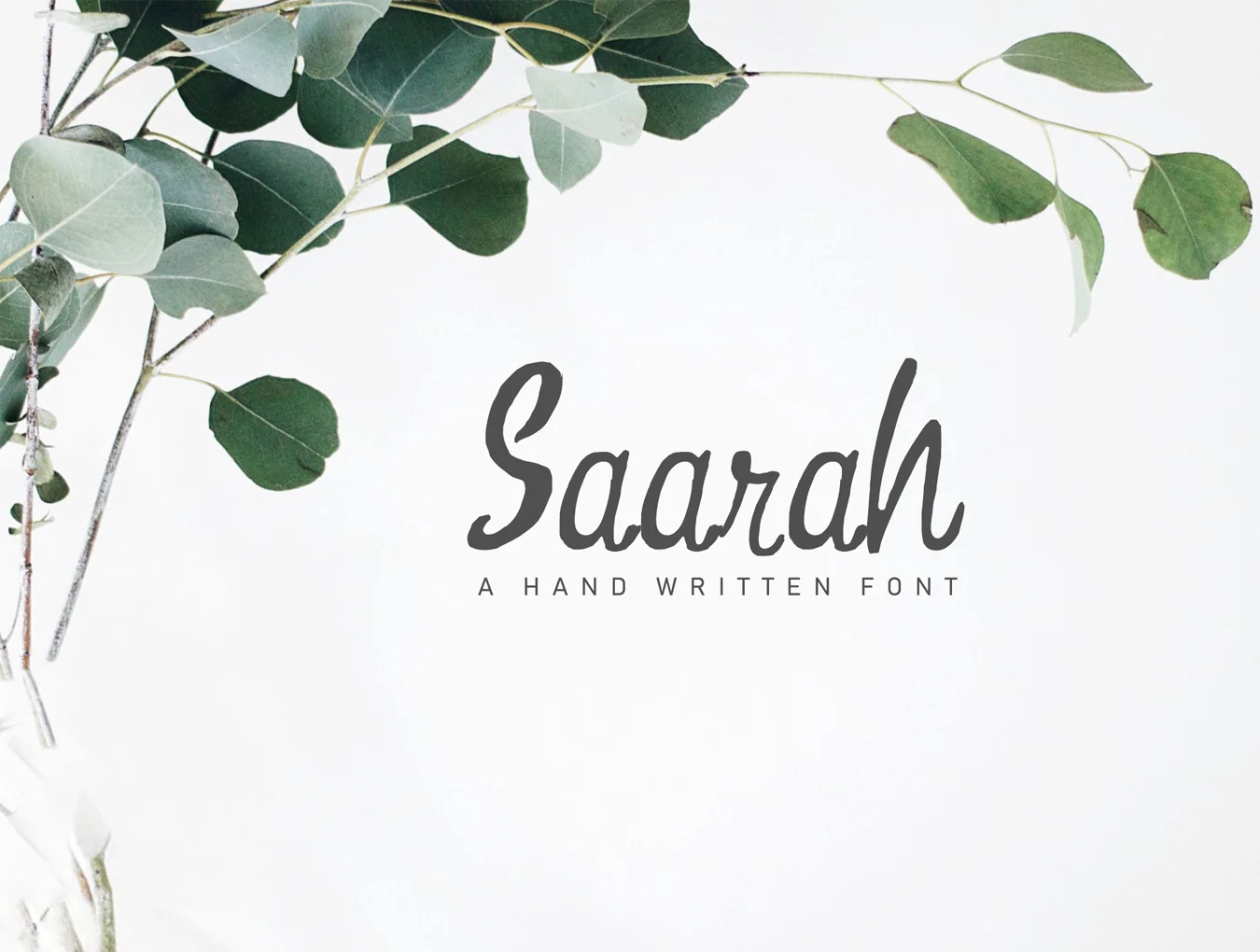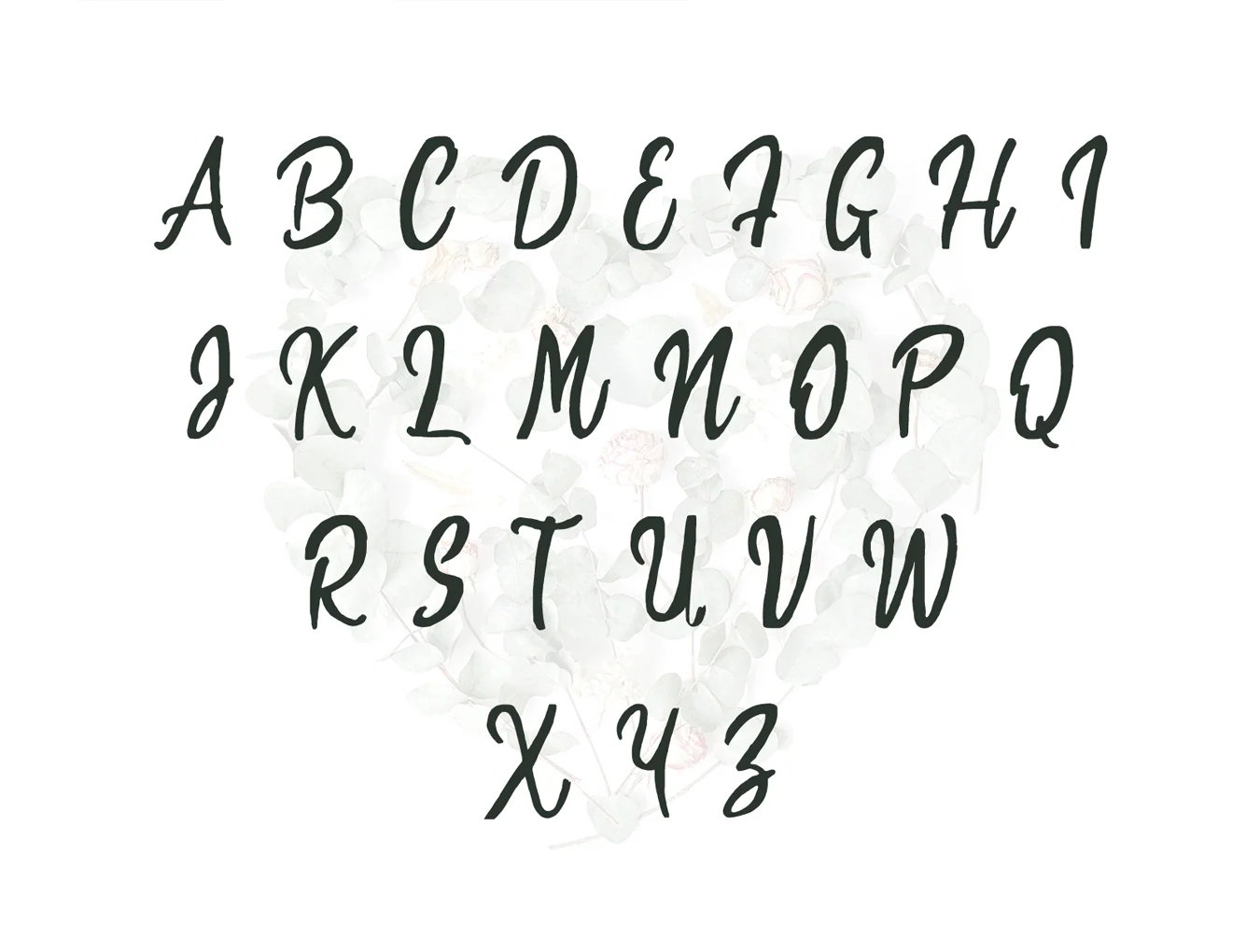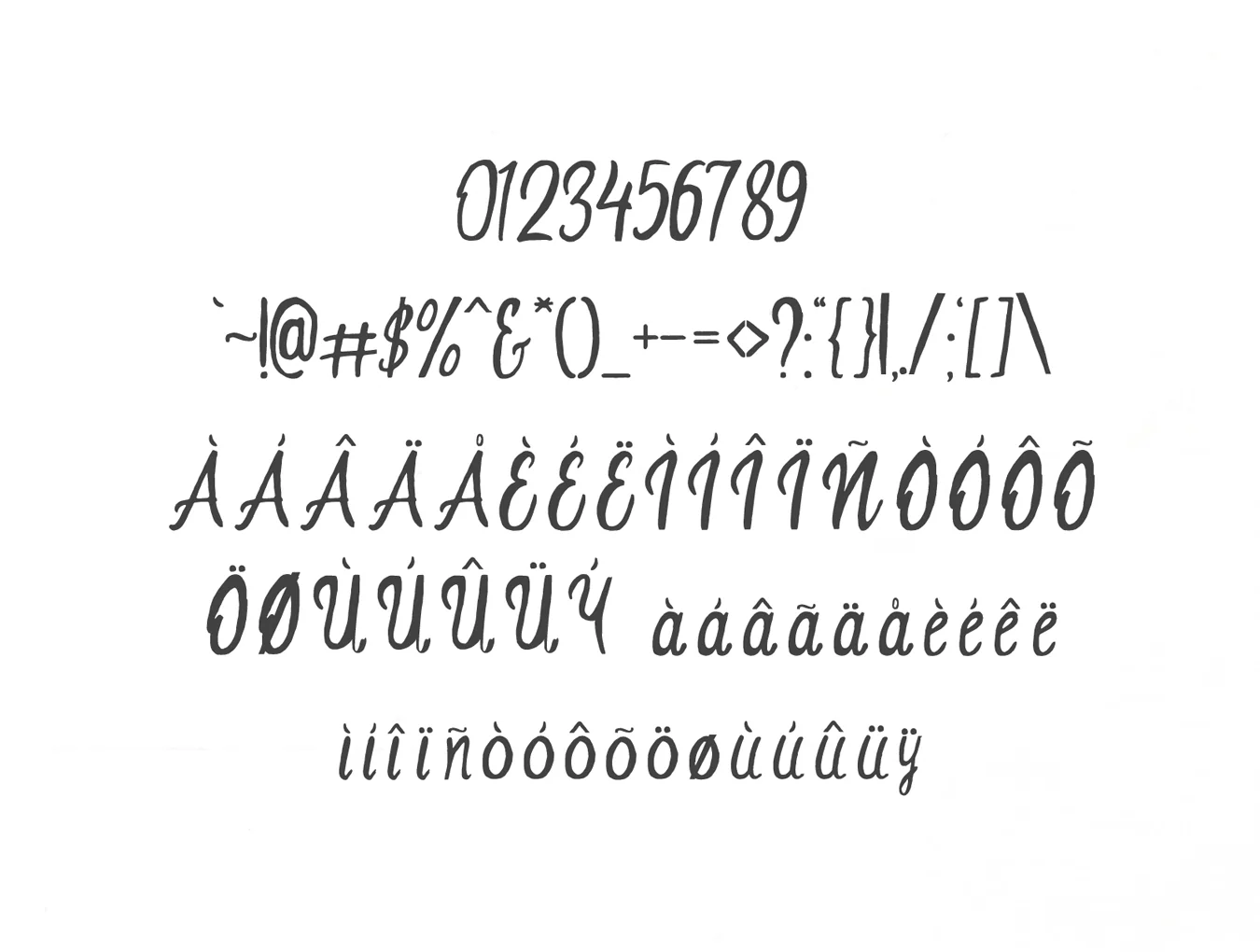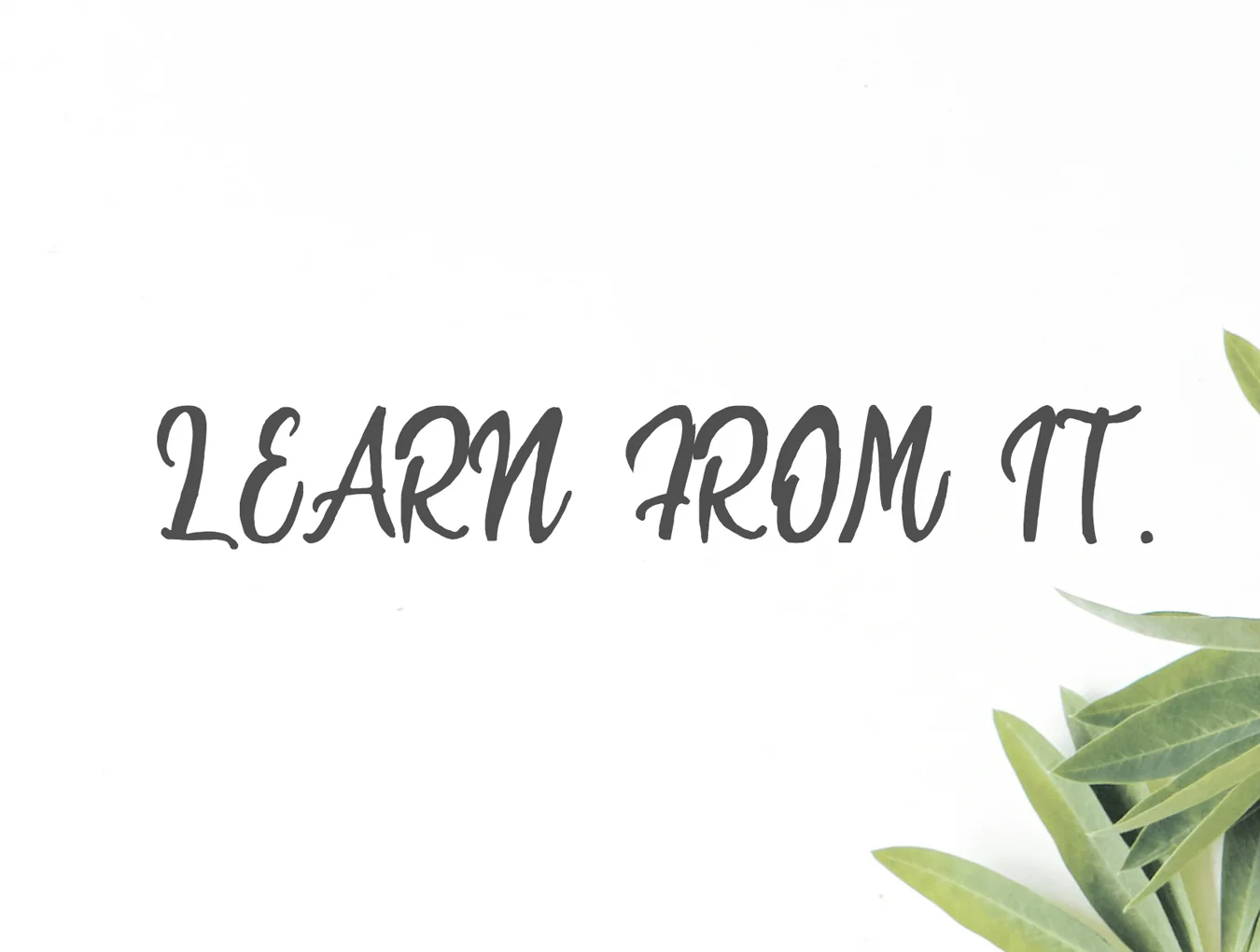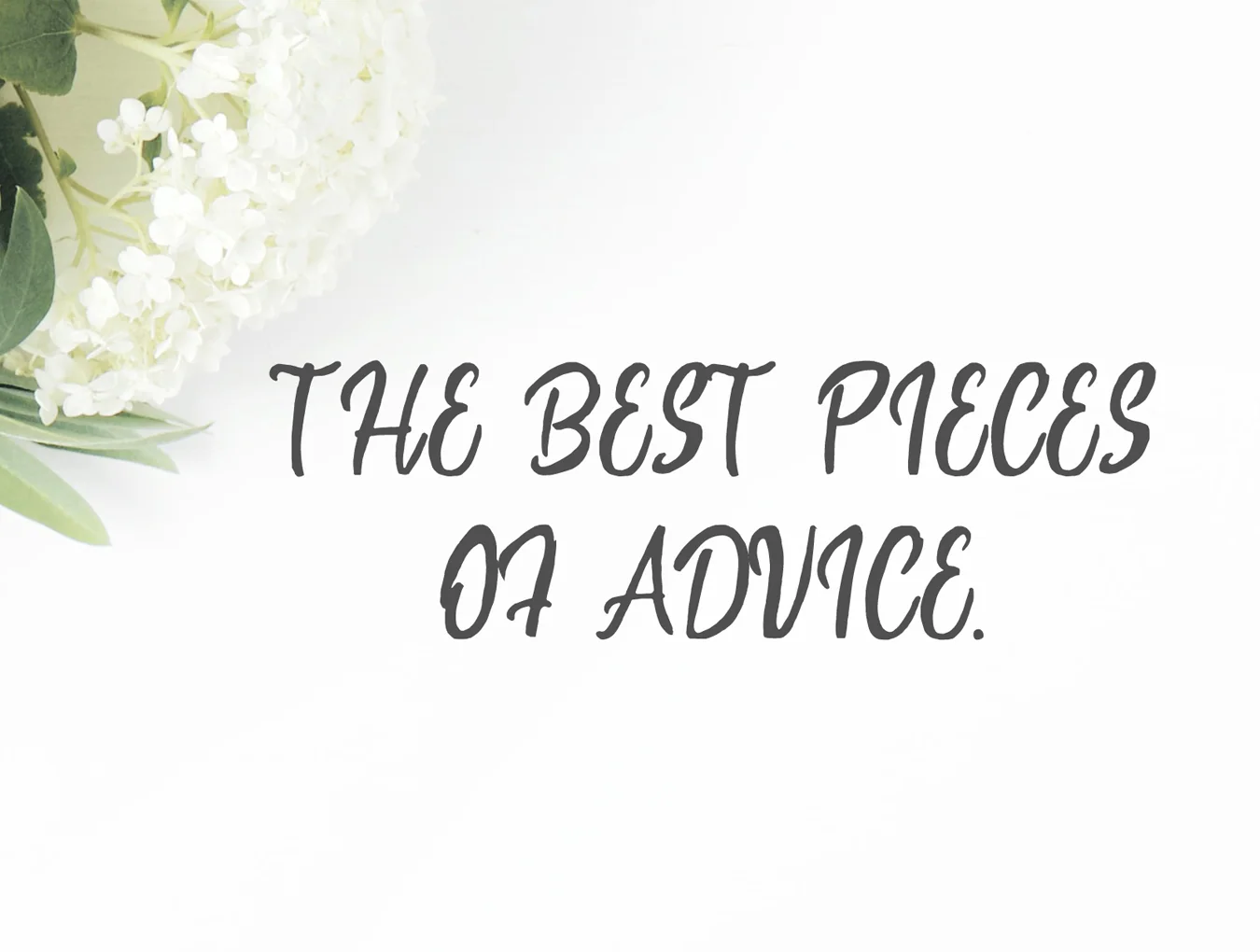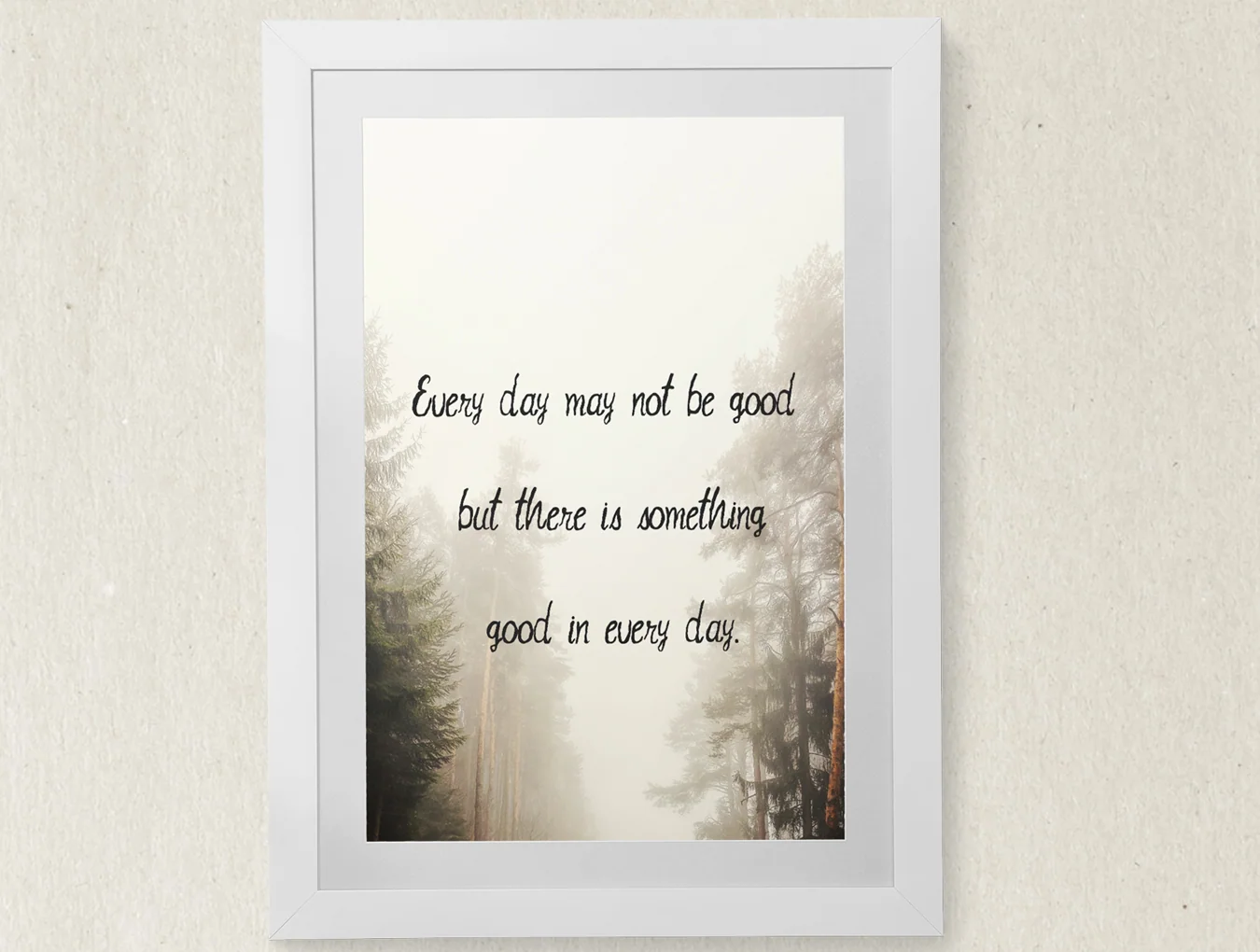
Saarah Fresh Font
Serif-style font
Standard weight style
Set of 260 characters
Saarah is a fresh handmade script font with soft, flowing curves. It works beautifully for greeting cards, branding, wedding postcards, business cards, quotes, posters, small businesses, book covers, stationery, marketing materials, magazines, and more.